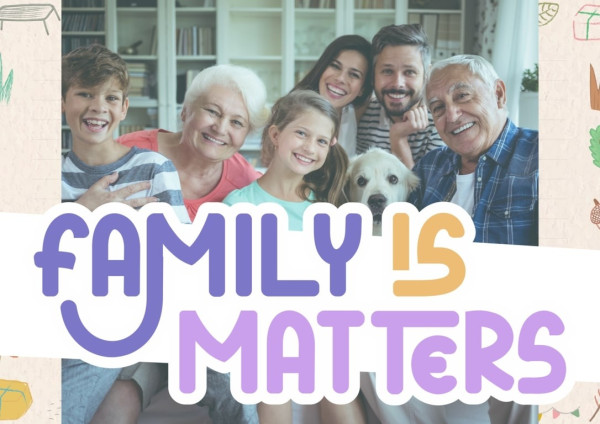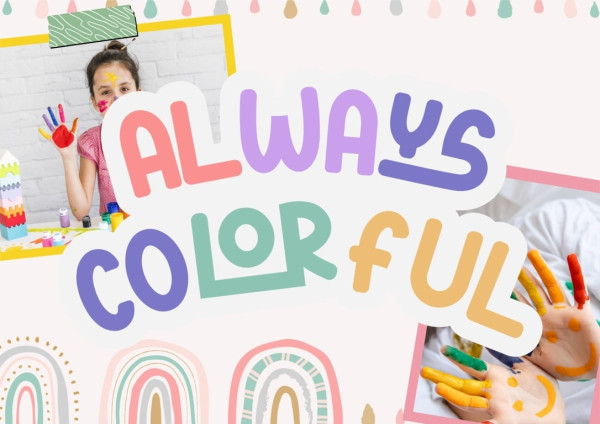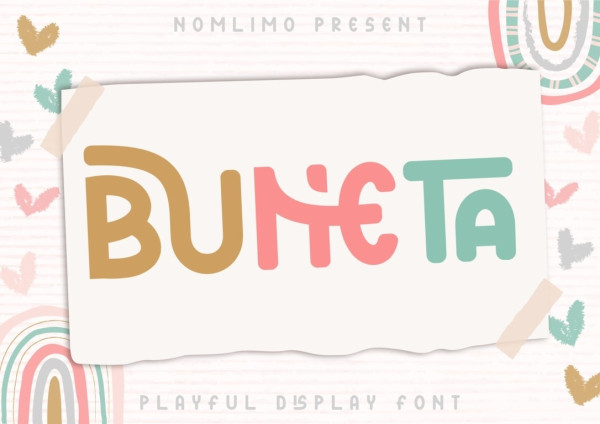
Buneta Display Font
Buneta Display Font, a delightful Kids font that sparks endless creativity with its wide range of combinations. Infuse your designs with a playful and sweet style, and watch them come to life with joy and excitement. This adorable font is perfect for adding a whimsical touch to children’s projects. Embrace the magic of Buneta and let your imagination run wild.